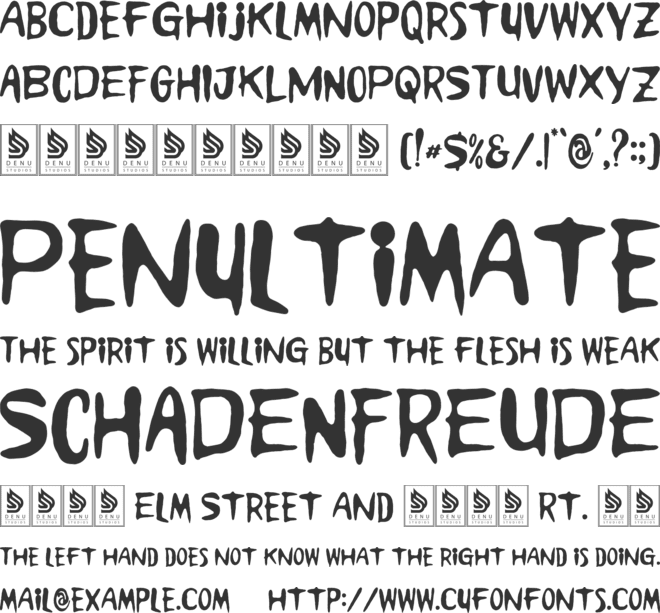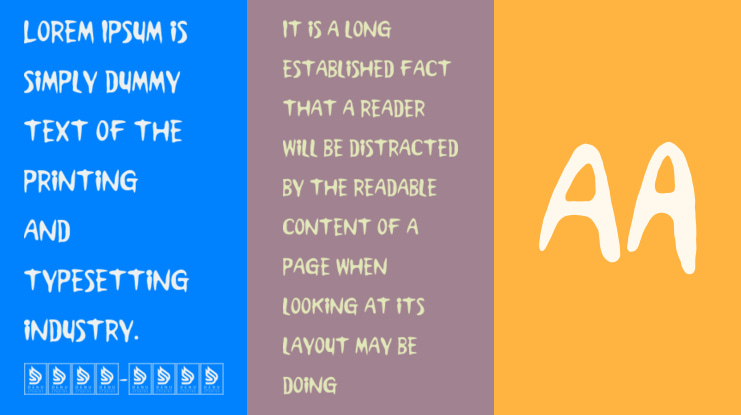
Sunset Shore | Hand Drawn Playful, is suitable for any projects such as: logos, branding projects, homeware designs, product packaging, mugs, quotes, posters, shopping bags, t-shirts, book covers, name card, invitation cards, greeting cards, label, photography, watermark, special events, and all your other lovely projects that need a Hand Drawn taste.